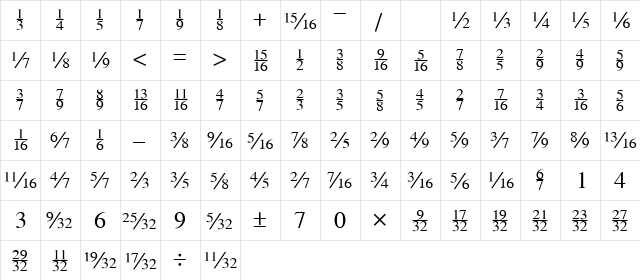
Seri Fractions Plain
Design Context for Seri Fractions Typeface
Seri Fractions takes a measured approach to typography — its balanced proportions and neutral character make it a reliable workhorse for both digital and print work.